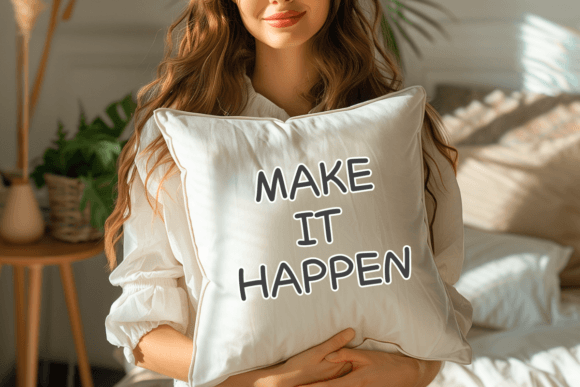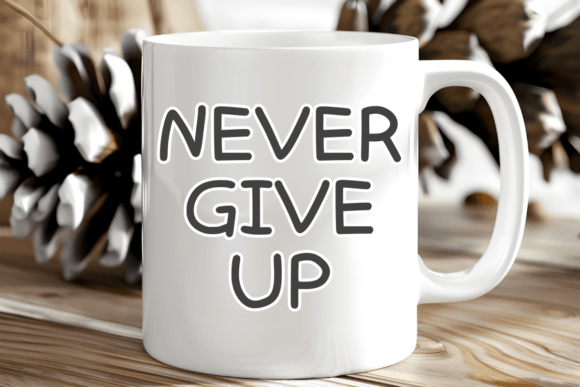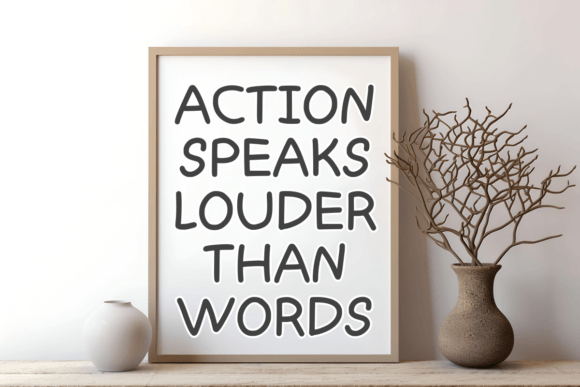
Introduction to Keep Going Font
Keep Going is a fun and quirky display font.
Key Features of Keep Going Font
Why Choose Keep Going Font?
Keep Going Font offers exceptional quality and versatility, making it a valuable addition to your design toolkit. Whether you’re creating for personal projects or commercial use, Keep Going Font delivers professional results.